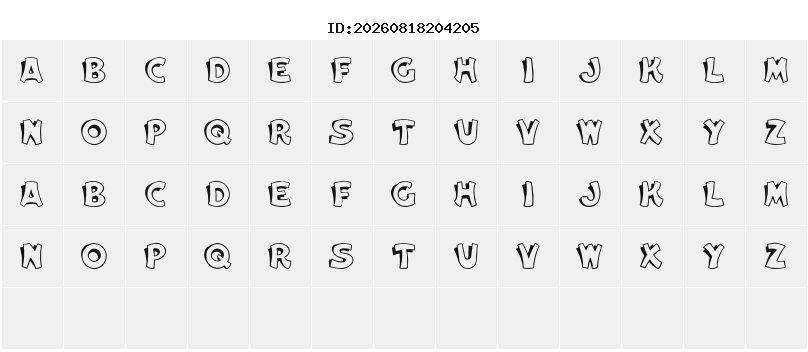
Siwork Preview
• Font Name: Siwork
• Font ID: ALLTYPE:Siwork Regular:ATECH
• Full Font Name: Siwork
• Version: Converted from F:YSiwork.TF1 by ALLTYPE
• PostScript Name: Siwork
About Siwork.ttf
Siwork.ttf is a modern, elegant sans-serif font designed for ultimate readability and visual harmony. Perfect for branding, headlines, web design, and print materials.